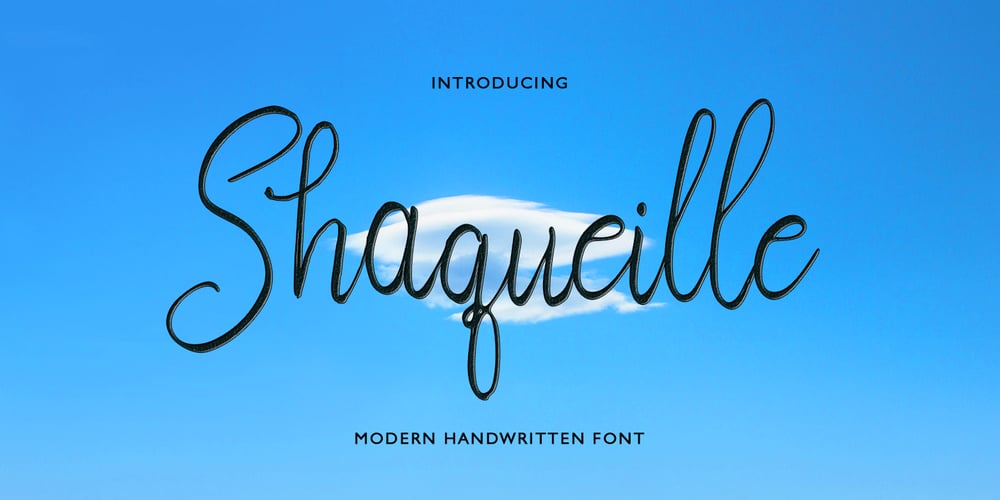
Shaqueille
Shaqueille font
Shaqueille Font Family was designed by Zaki Muhammad and published by madjack.font. Shaqueille contains 1 styles and family package options. Shaqueille is a hand brush font made with brushes and ink, giving thick and irregular lines. It contains the complete set of lowercase, uppercase, alternative, punctuation, numbers, and multilingual support. Use Shaqueille to make extraordinary typographic creations. Get inspiration from the preview above. This font is ideal for use in bold color designs or bold handwriting styles, such as blog titles, posters, wedding invites, t-shirts, clothing, book covers, business cards, greeting cards, branding, merchandising, handmade invitations, quotes and more. How to access all alternative characters, using Windows Character Map with Photoshop: https://www.youtube.com/watch?v=Go9vacoYmBw How to access all alternative characters using Adobe Illustrator: https://www.youtube.com/watch?v=XzwjMkbB-wQ